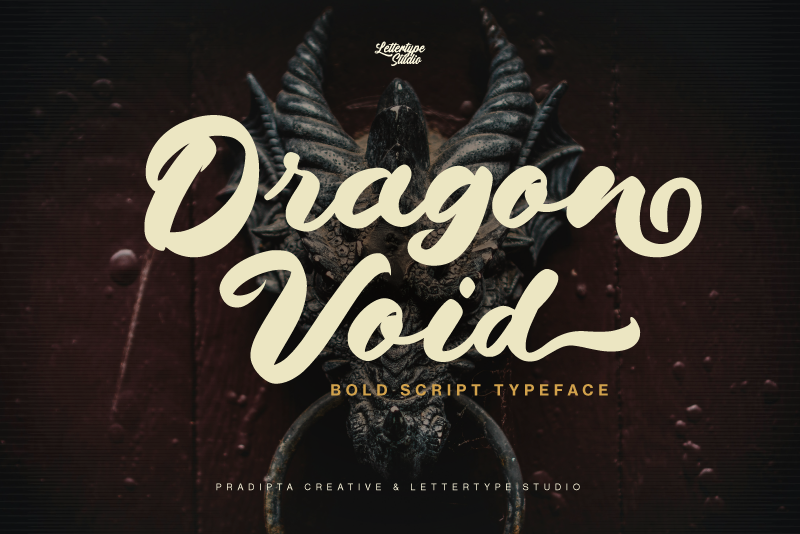
About Dragovoid
We are introducing our new bold, retro, handmade script font Dragonvoid. The special features have a lot any variations of alternates and ligatures, which will add a more personal touch to any project.
Dragonvoid is perfect for photography, watermarks, social media posts, advertisements, logos & branding, invitations, product designs, labels, stationery, wedding designs, product packaging, subheaders or headers, special events, or anything that needs bold script taste.
Dragonvoid Font By Lettertype Studio